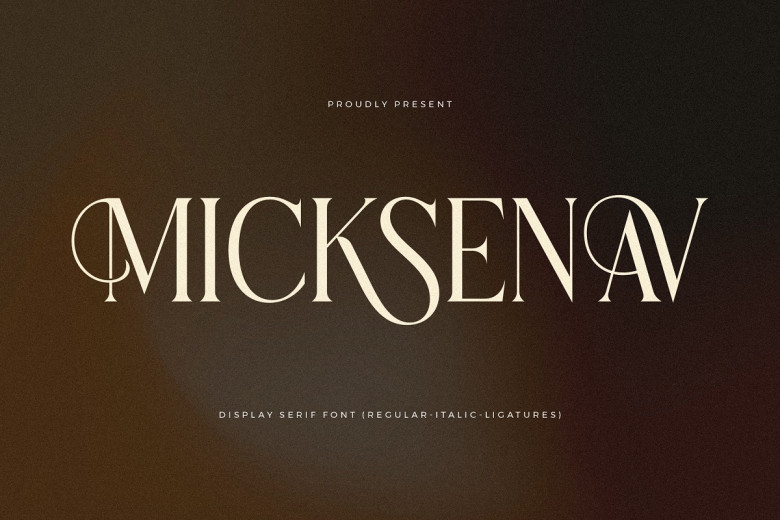
Micksenav Font
Micksenav Font, created by Storytype, is a contemporary yet timeless serif typeface with its distinct style and a contemporary appearance, perfect for sophisticated logos, movie or book title designs, fashion brand clothing logos, magazine lettering or quotes among many other things.
Micksenav Serif Font